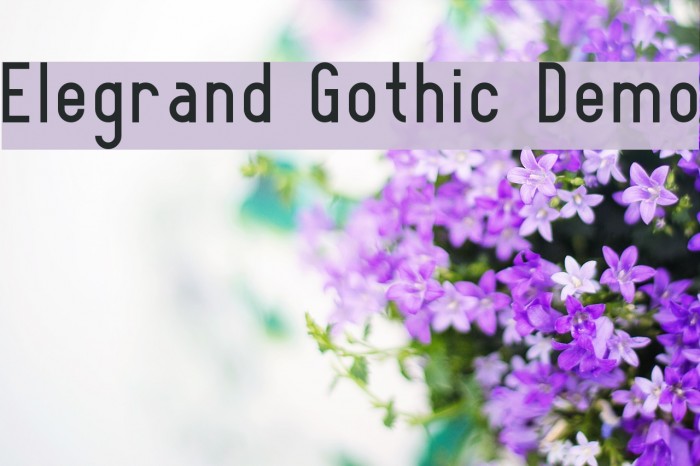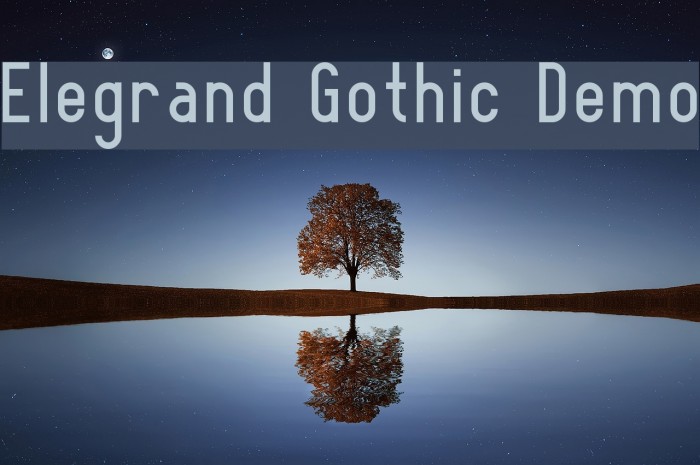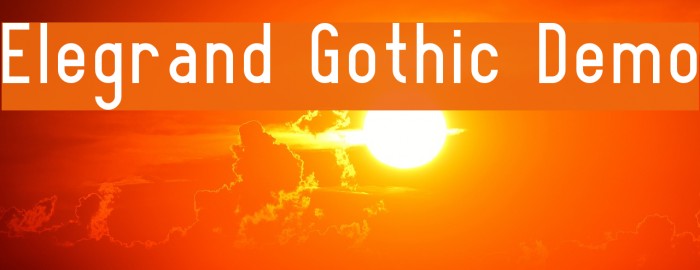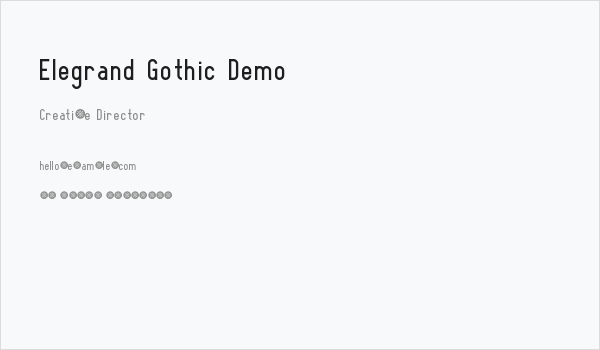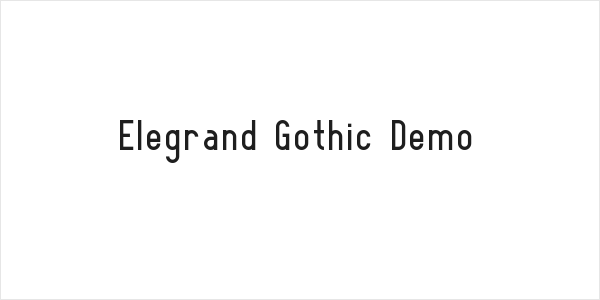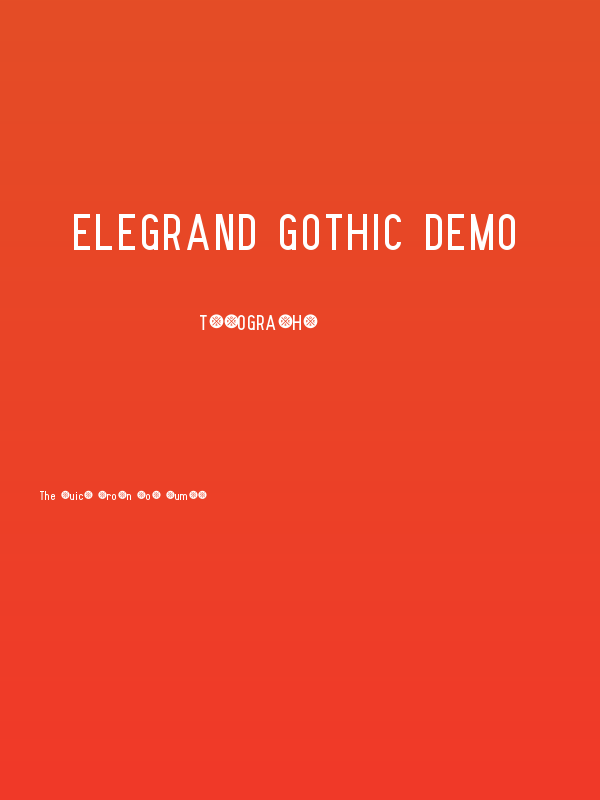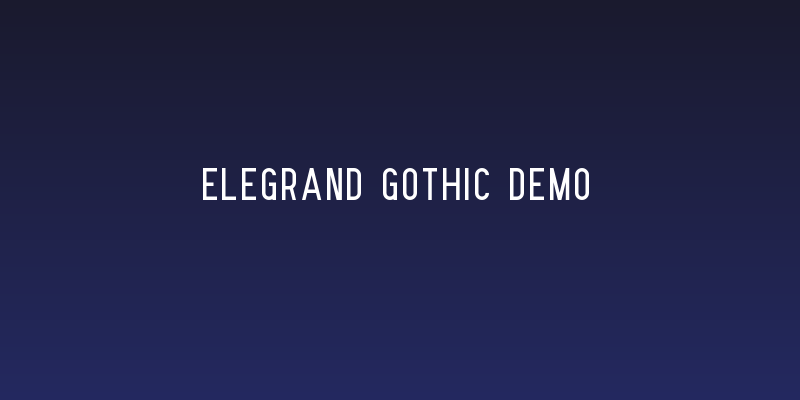
Elegrand Gothic Demo Font
Elegrand Gothic Demo Description
This font features a modern and clean sans-serif design with a geometric structure. The characters are uniform in width, providing a balanced and harmonious appearance. The uppercase and lowercase letters maintain a consistent style, with slightly rounded edges that soften the overall look. The numerals are clear and legible, matching the style of the alphabetic characters. Special characters are included, maintaining the same geometric and clean aesthetic. This font is versatile, suitable for various design projects that require a contemporary and professional touch.